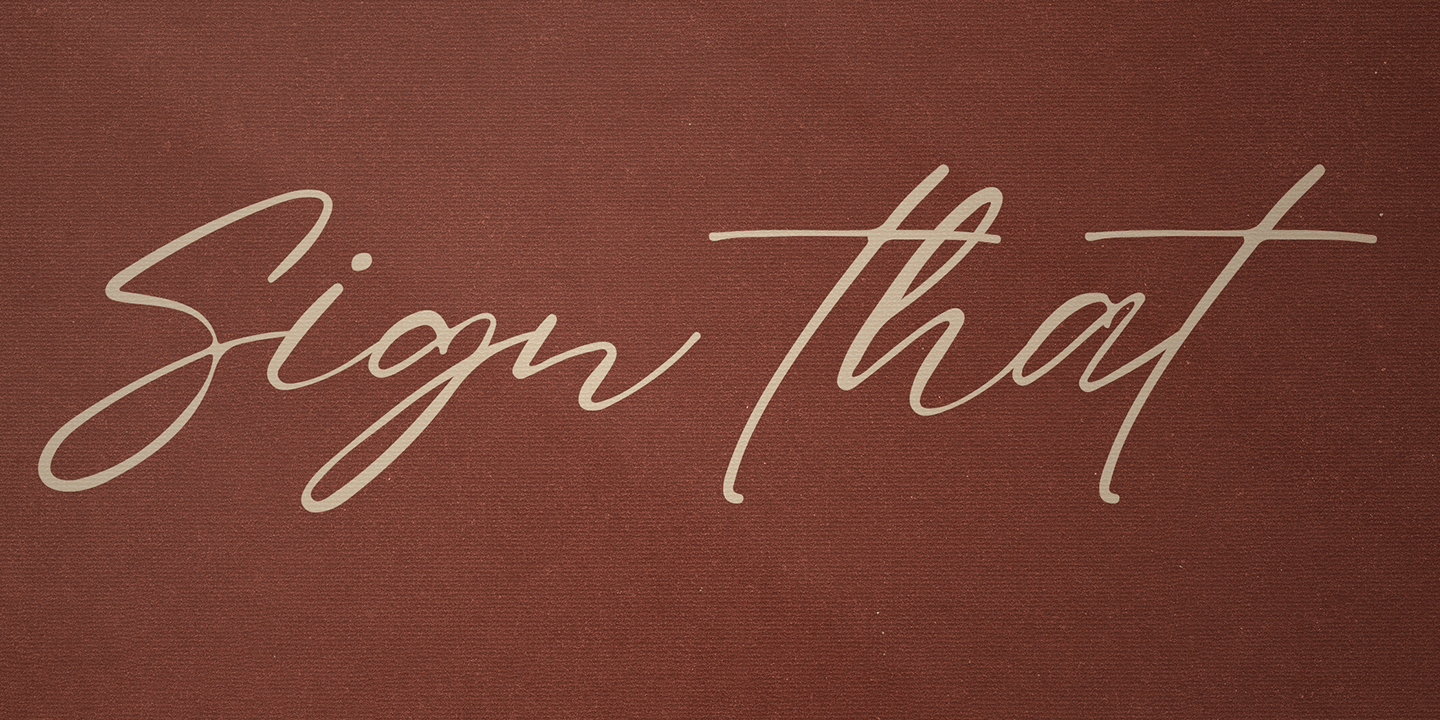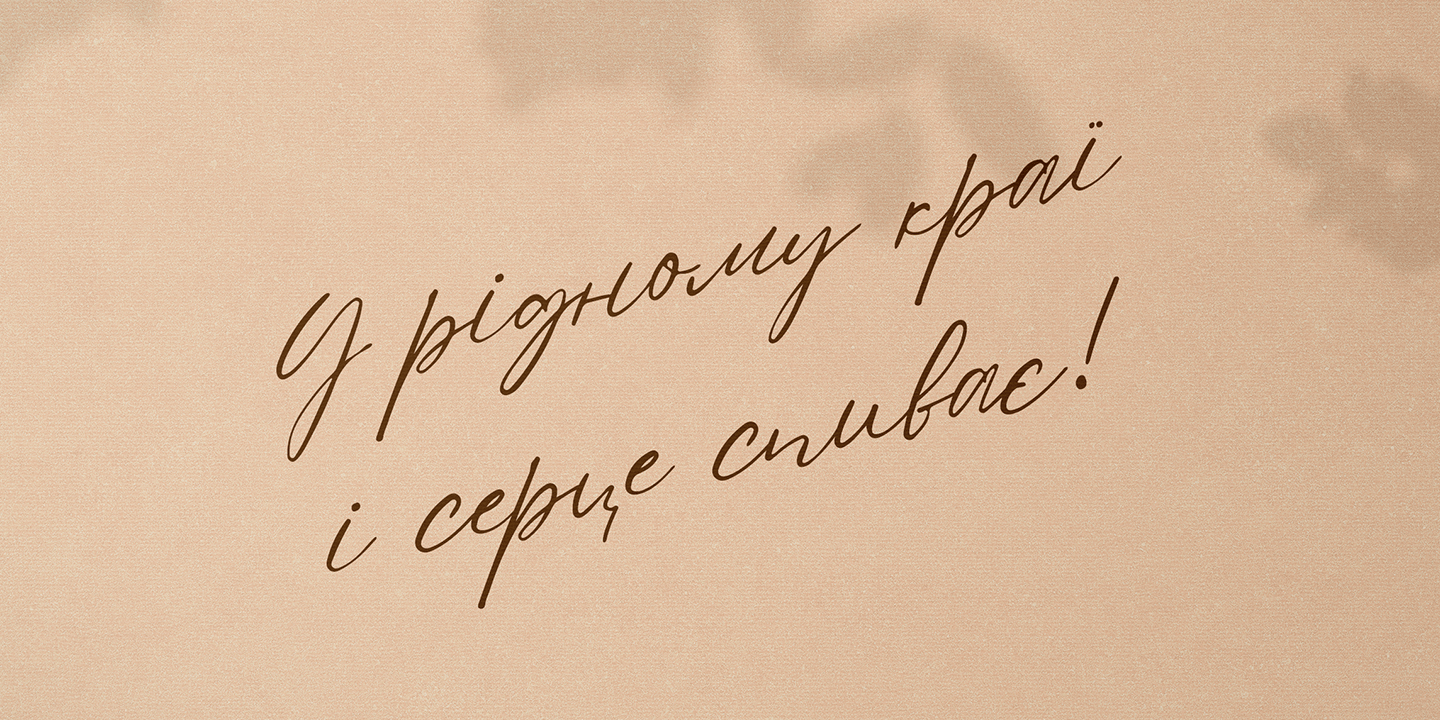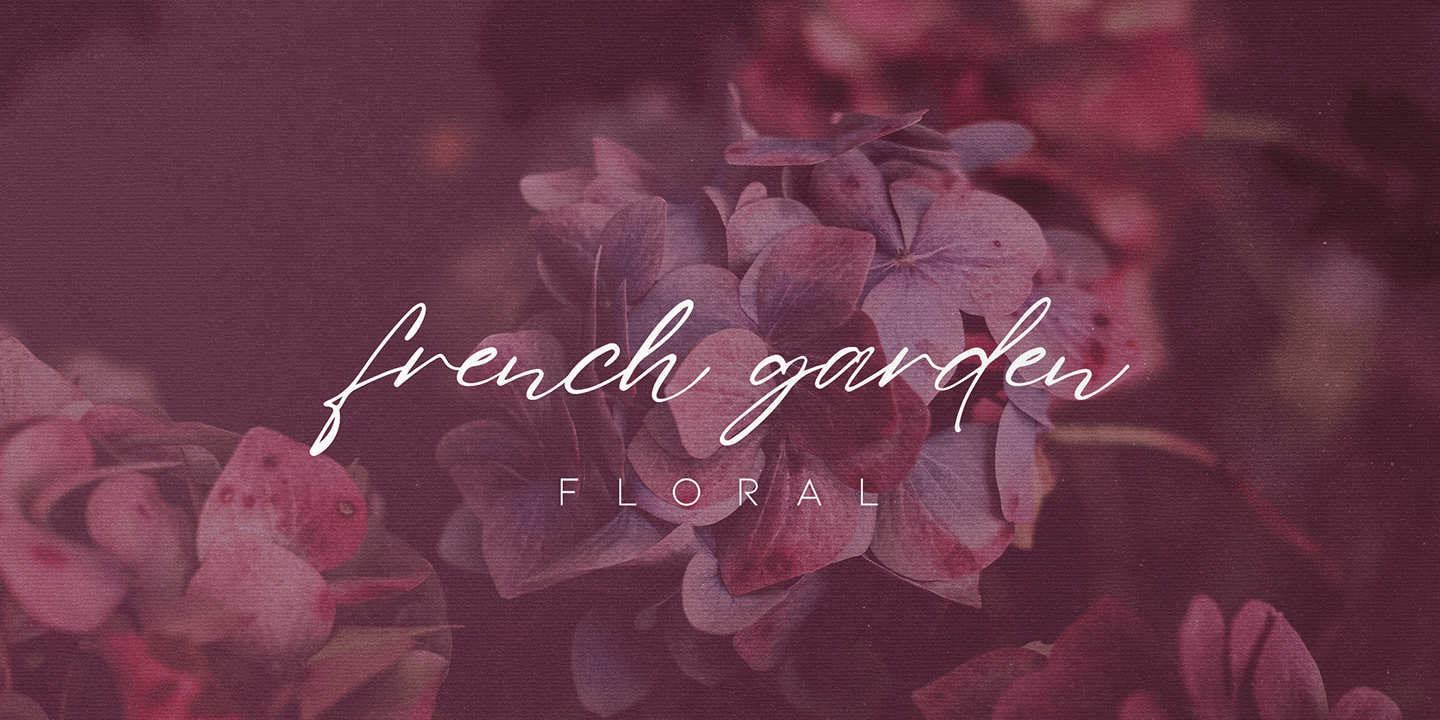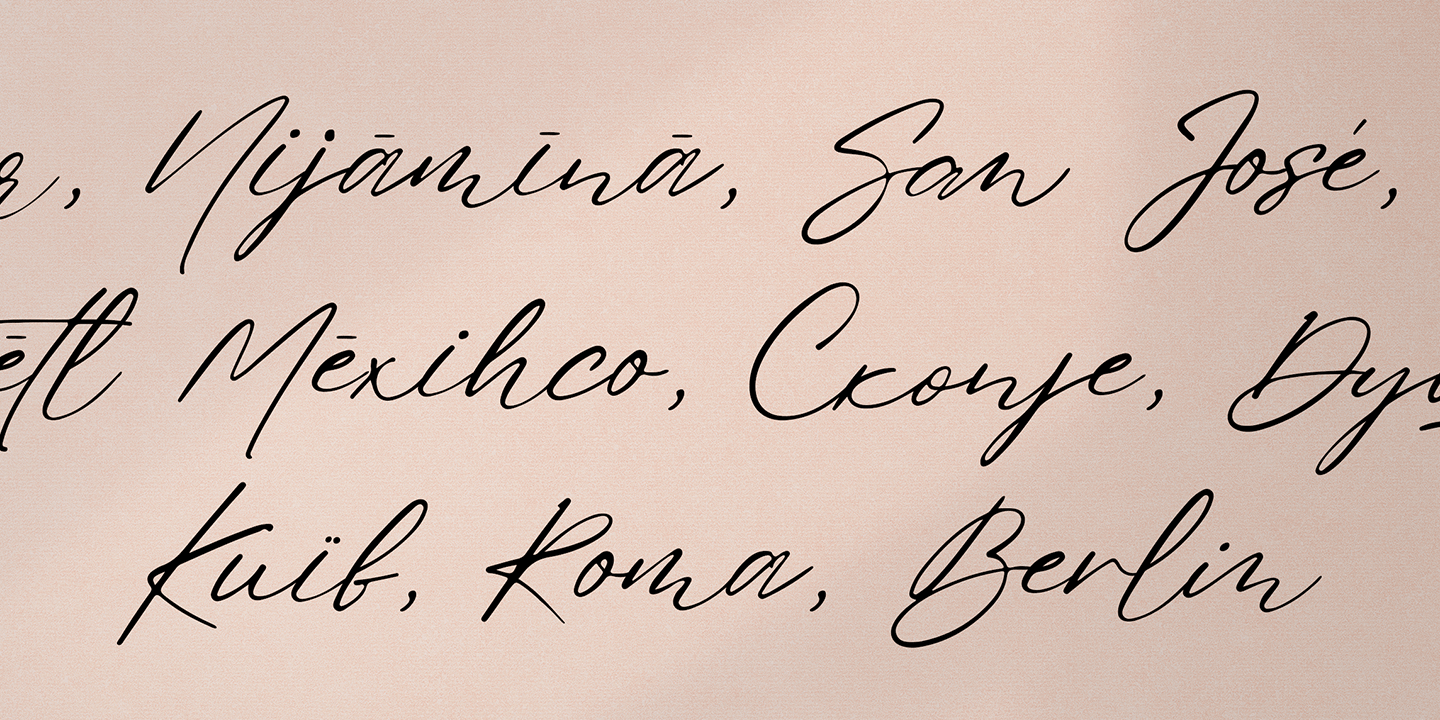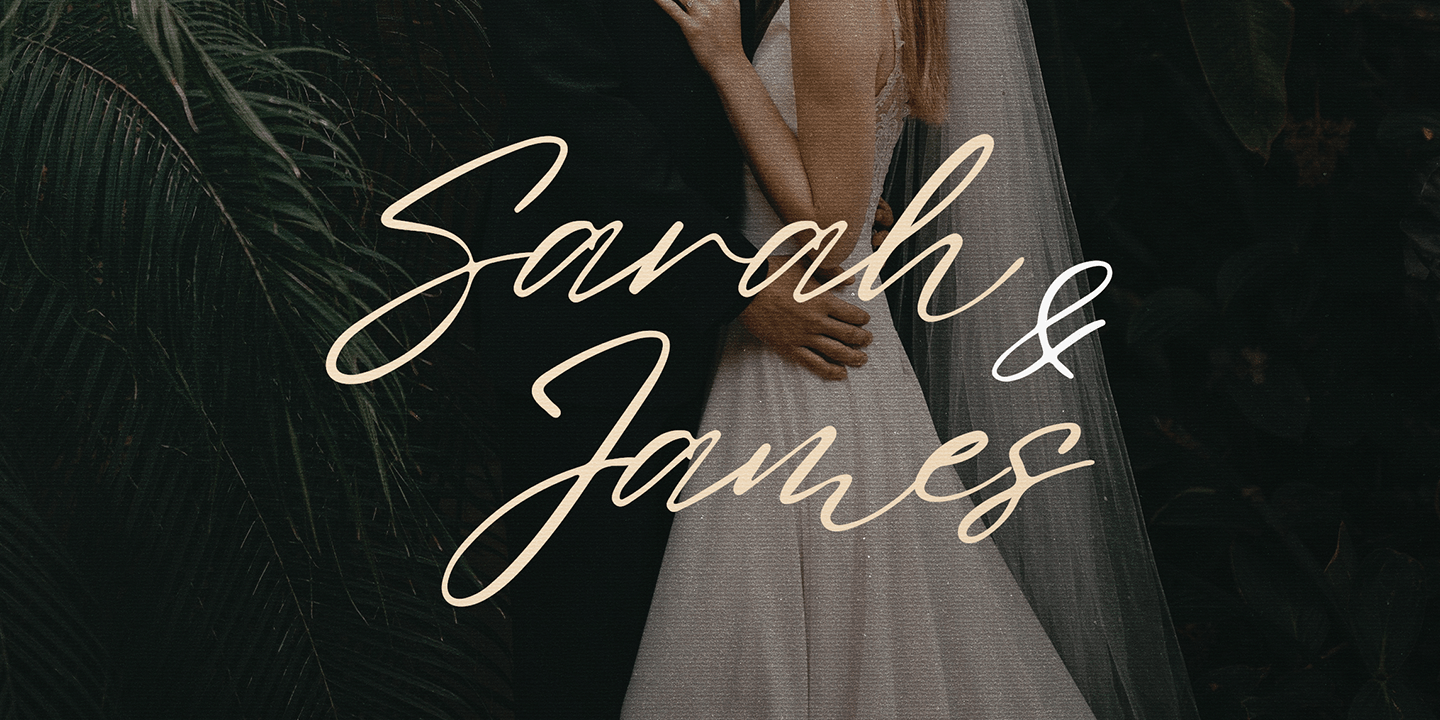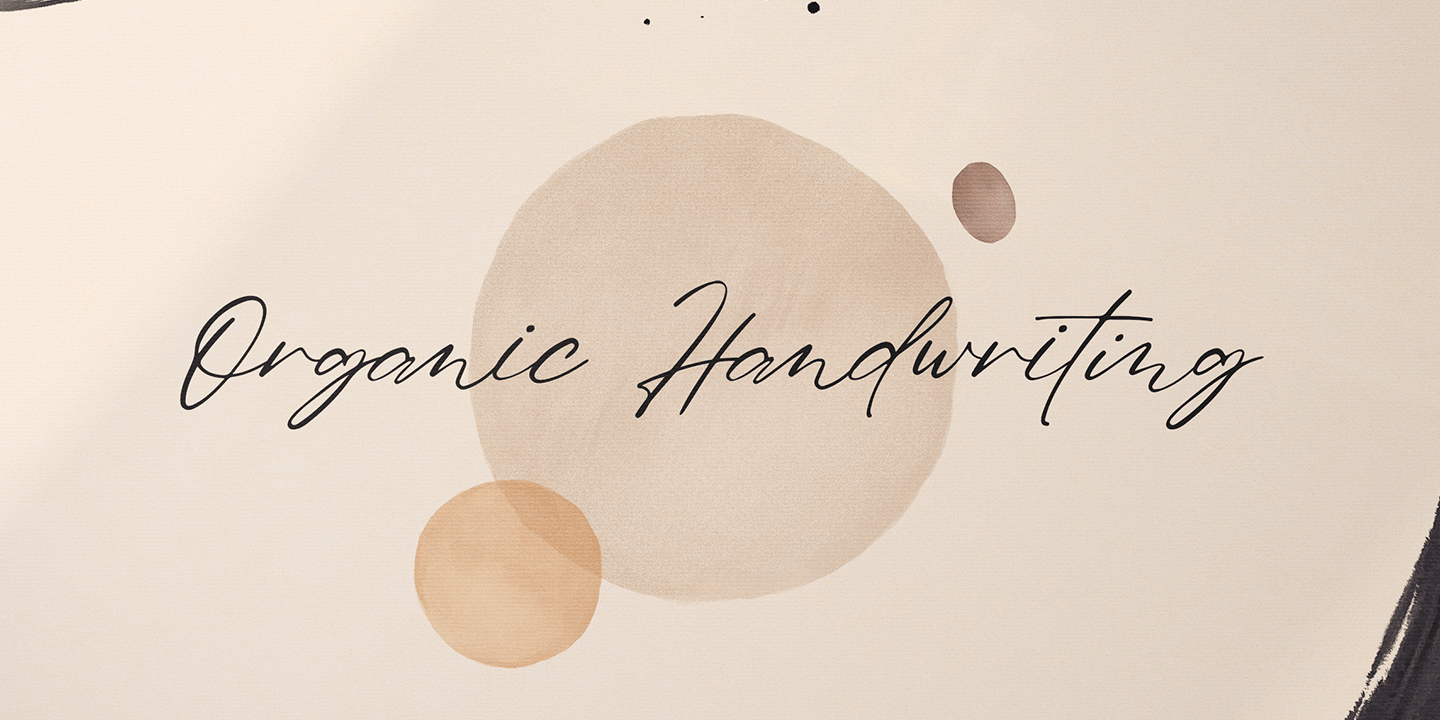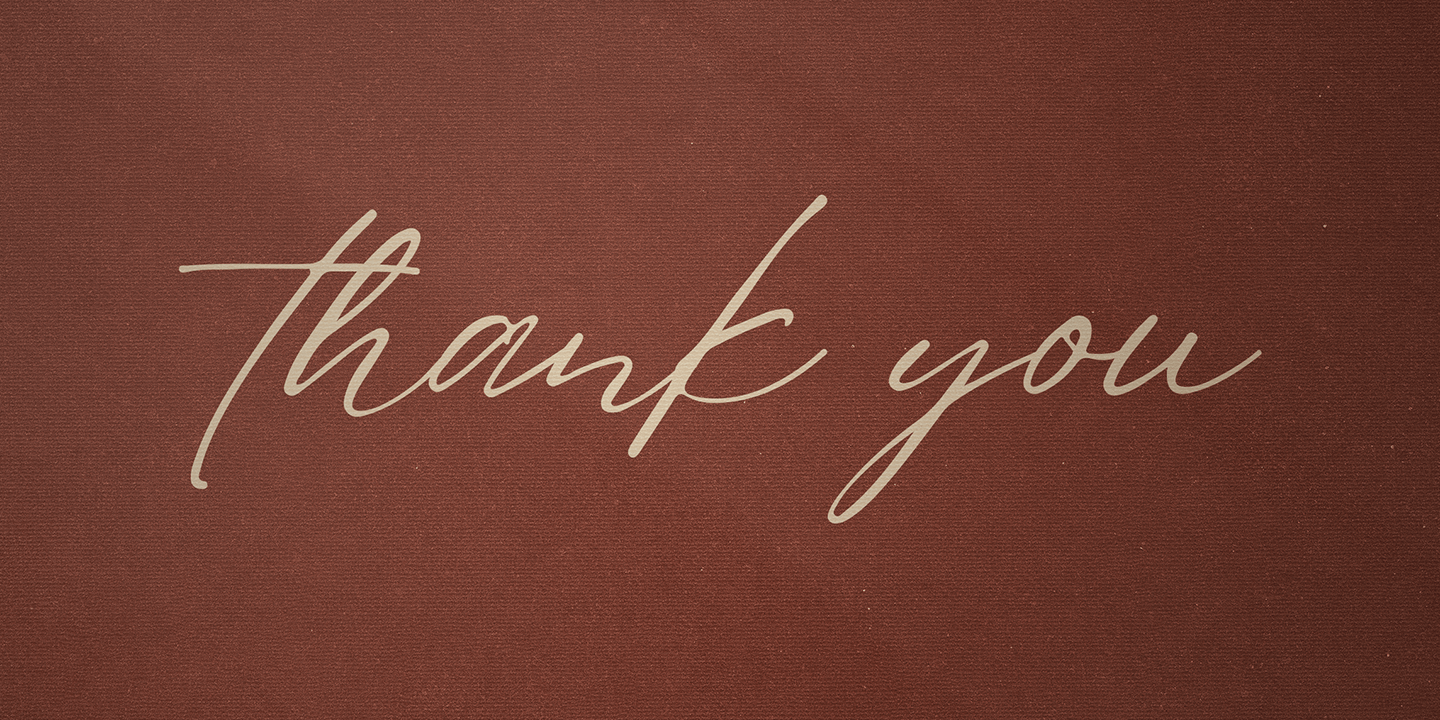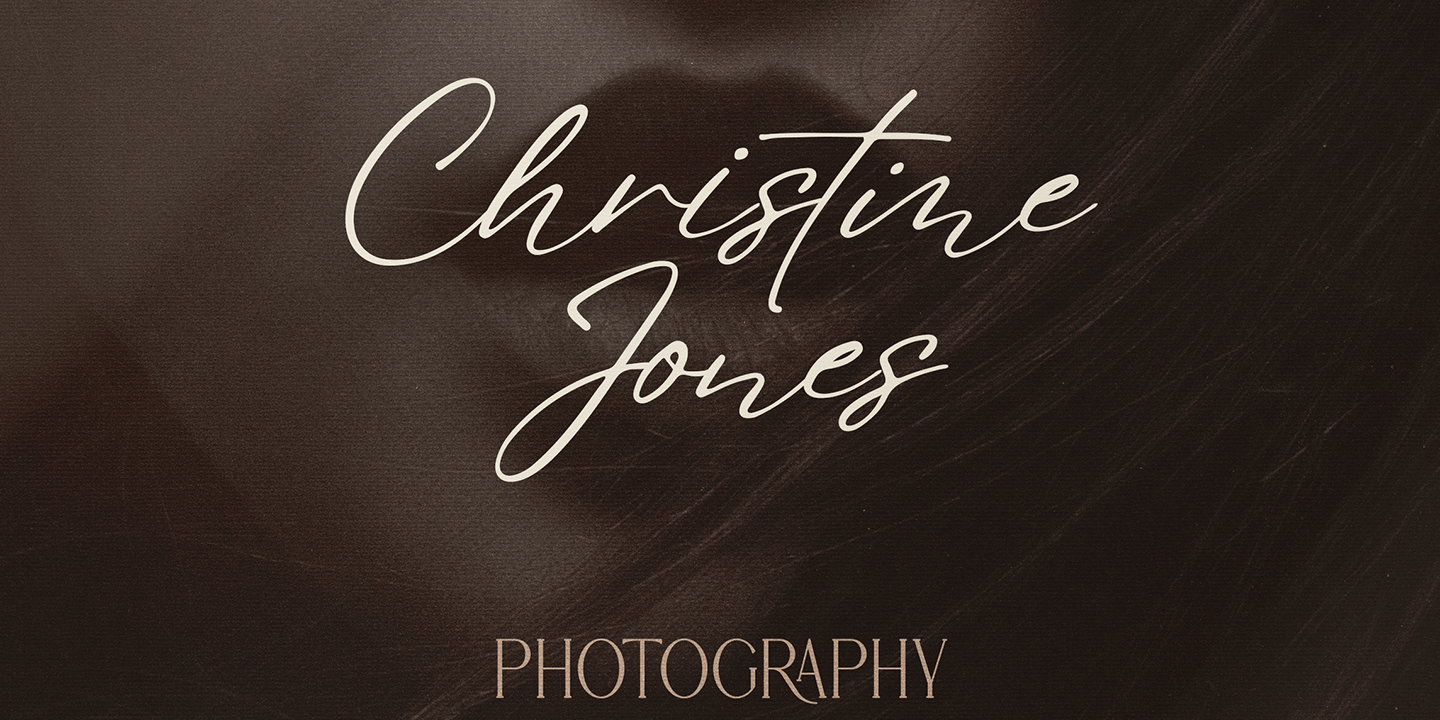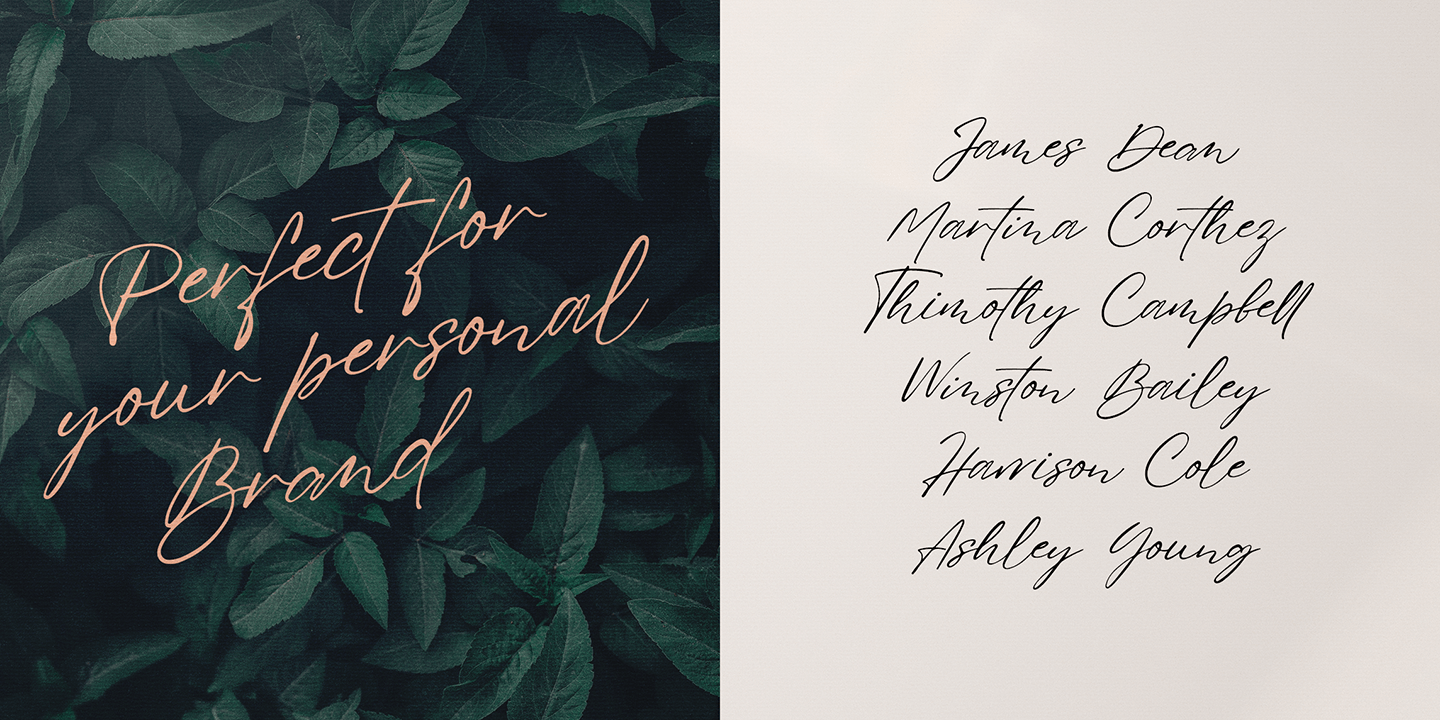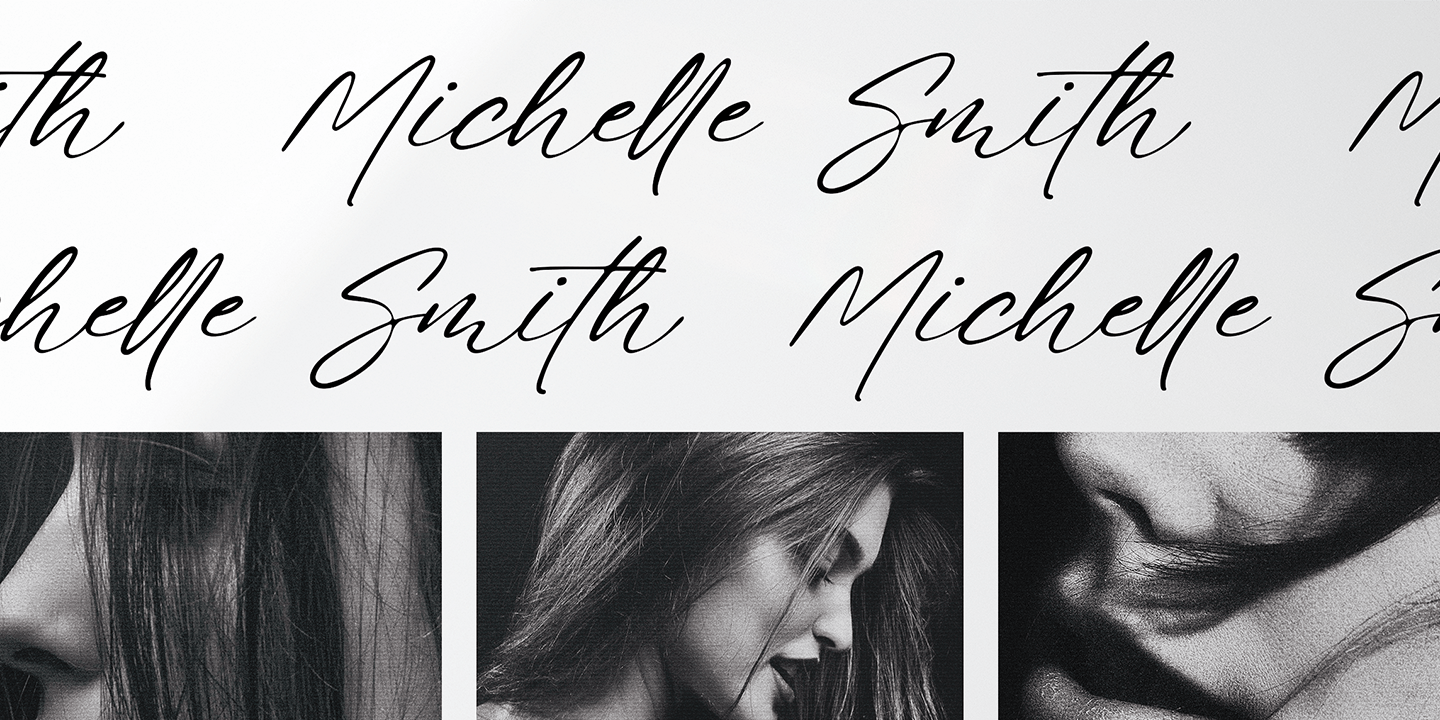
Sign That
Introducing Sign That - Signature script
Sign That is organic and casual script loaded with ligature glyphs and 95 languages support
Language Support : Belarusian, Bosnian, Bulgarian, Chechen, Macedonian, Russian, Serbian, Afrikaans, Albanian, Asu, Basque, Bemba, Bena, Breton, Chiga, Colognian, Cornish, Czech, Danish, Dutch, Embu, English, Estronian, Faroese, Filipino, Finnish, French, Friulian, Galician, Ganda, German, Gusii, Hungarian, Indonesian, Irish, Italian, Jola-Fonyi, Kabuverdianu, Kalenjin, Kamba, Kikuyu, Kinyarwadna, Litvian, Lithuanian, Lower Sorbian, Luo, Luxembourish, Luyia, Machame, Makhuwa-Meetoo, Makonde, Malagasy, Maltese, Manx, Meru, Morisyen, North Ndebele, Norwegian Bokm ål, Norwegian Nynorsk, Nyankole, Ormo, Polish, Portuguese, Quechua, Romanian, Romansh, Rombo, Rundi, Rwa, Samburu, Sango, Sangu, Scottish Gaelic, Sena, Shambala, Shona, Slovak, Soga, Somali, Spanish, Swahili, Swedish, Swiss German, Taita, Teso, Turkish, Ukrainian, Upper Sorbian, Uzbek (Latin), Volap ük, Vunjo, Walser, Welsh, Western Frisian, Zulu
FEATURES
• Uppercase, lowercase, numeral, punctuation & Symbol
• ligature glyphs
• Multilingual support - 95 languages